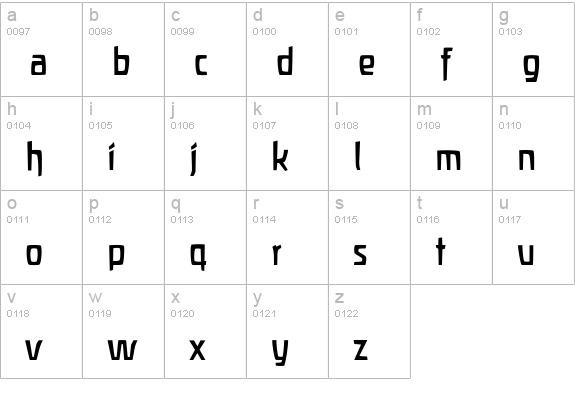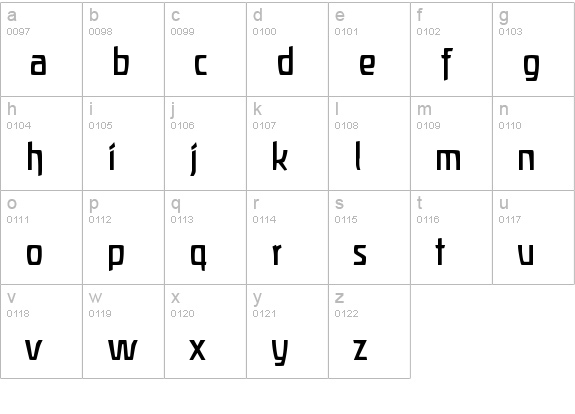
Liant-Medium is a balanced, medium-weight variant in the Liant typeface family \xE2\x80\x94 well suited to sub-headlines, navigation, and balanced editorial work.
Liant-Medium is a versatile and modern font that strikes the perfect balance between sophistication and readability. With its clean lines and elegant curves, this font is ideal for a wide range of design projects, from branding to editorial design. The Liant-Medium font exudes a sense of professionalism and style, making it a popular choice among designers and creatives. What sets Liant-Medium apart is not only its aesthetic appeal but also its accessibility. This font is available for free download at FontsMarket.com, making it easy for anyone to incorporate it into their projects without any cost. Whether you're designing a sleek logo, crafting a beautiful wedding invitation, or creating a captivating social media graphic, Liant-Medium is sure to elevate your design with its timeless and versatile appeal. Download Liant-Medium today and unleash your creativity with this stunning and free font.